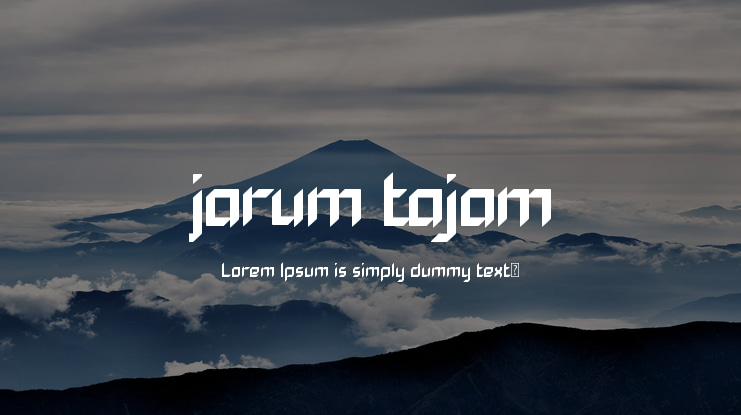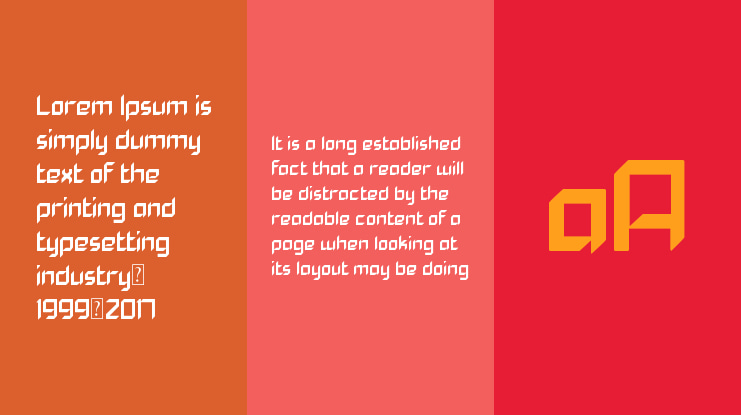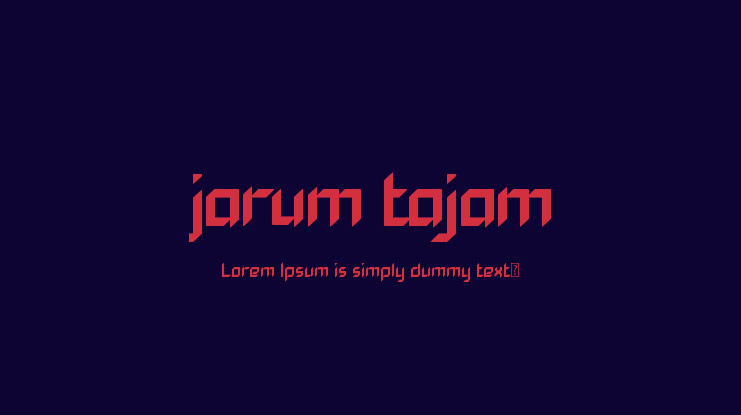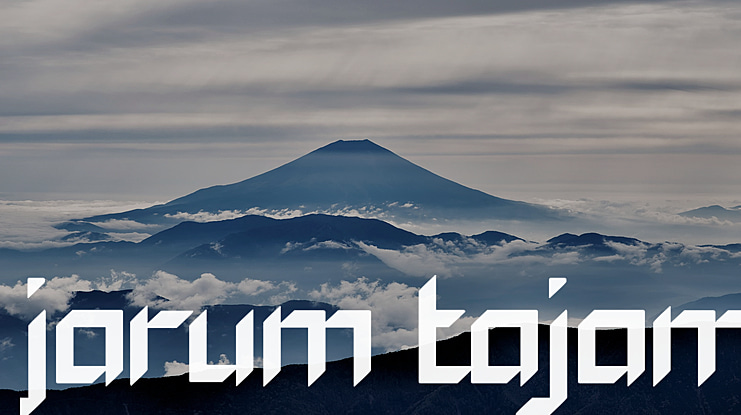
jarum tajam Font
here you can download the new font from our studio for personal use, this font is San serif and little touch of gothic,.
this font is suitable for title. sub title, header or headline title, so it only consist letter and number.